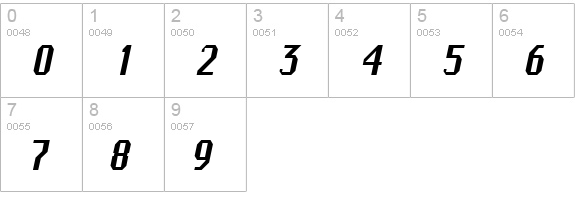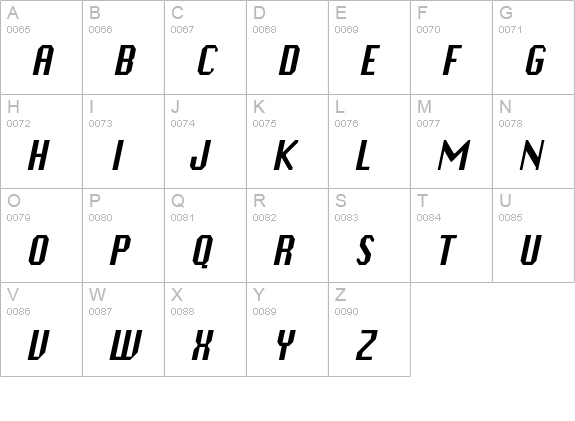
Ambush-Condensed Italic Font Details
Ambush-Condensed Italic is a distinctive, condensed-width, italic variant in the Ambush typeface family \xE2\x80\x94 well suited to design and typography projects.
Ambush-Condensed Italic font is a sleek and stylish typeface that exudes a sense of modernity and sophistication. Its condensed form adds a touch of elegance to any design, making it perfect for projects that require a refined and contemporary look. The italicized style of the font gives it a sense of movement and dynamism, making it a versatile choice for a wide range of design applications. What's even better is that Ambush-Condensed Italic font is available for free download at FontsMarket.com. Whether you're working on a branding project, a website design, or any other creative endeavor, this font is sure to elevate your work and make a lasting impression. Don't miss out on the opportunity to add this stunning typeface to your font collection today!